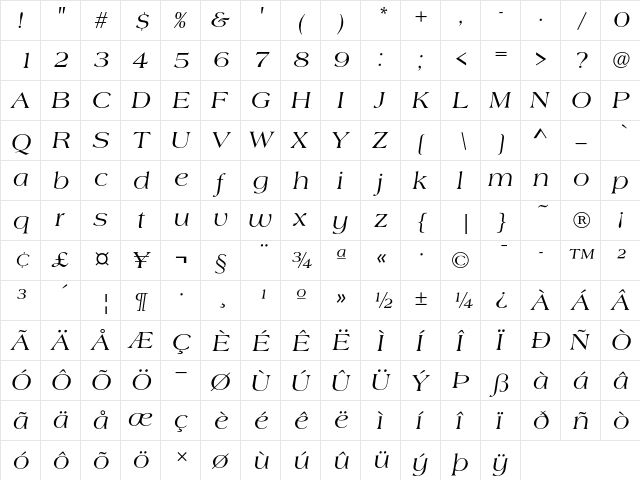
Americana T Regular Italic
Design Context for Americana T Typeface
Americana T offers clean, dependable letterforms without strong stylistic allegiance, making it a practical choice for designers who need flexibility. The slanted form adds forward momentum and visual energy.
Pro Tip: Use Americana T for emphasis, pull quotes, and subheadings where its slanted energy can add rhythm to the layout.